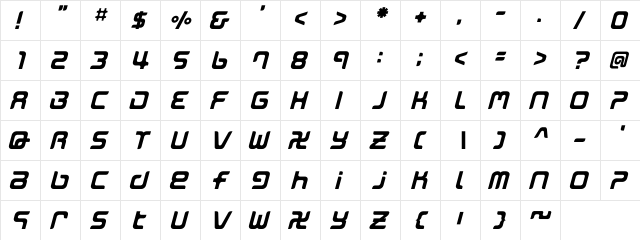
MarkingMarker ALPItalic
Design Context for MarkingMarker Typeface
MarkingMarker is a composed and adaptable typeface that performs quietly and consistently across a wide range of design contexts. Its italic angle brings a sense of urgency and motion to the letterforms.
Pro Tip: Try MarkingMarker for annotation and caption copy alongside an upright companion — the contrast in angle creates a dynamic but ordered typographic system.